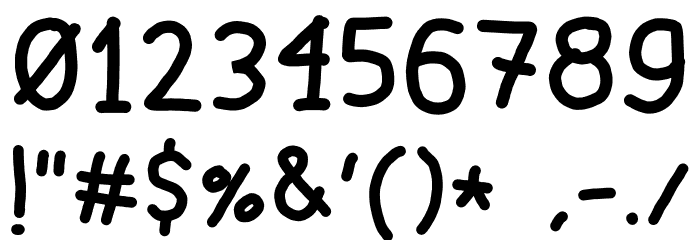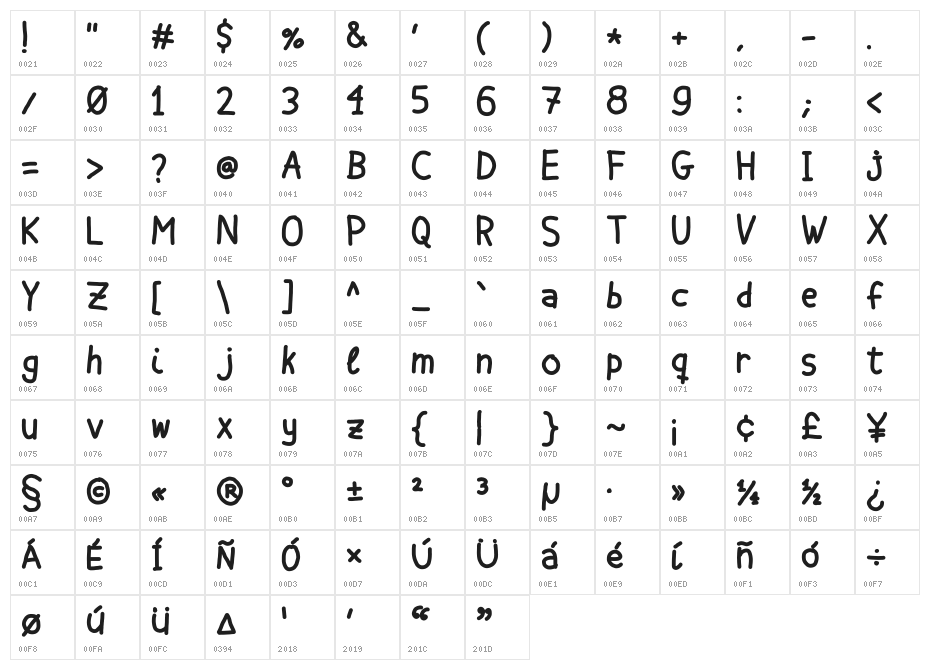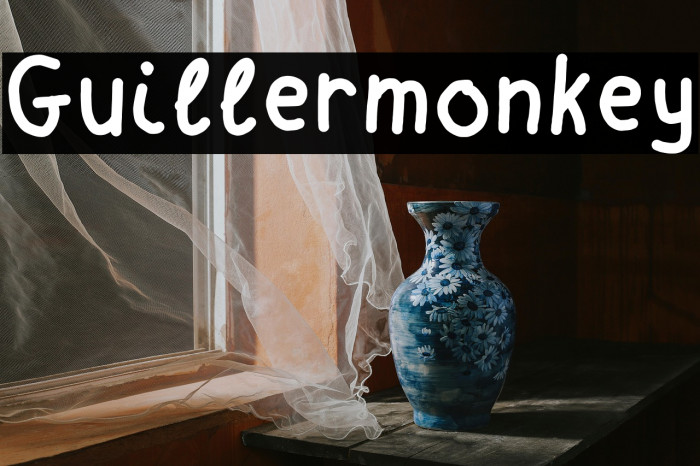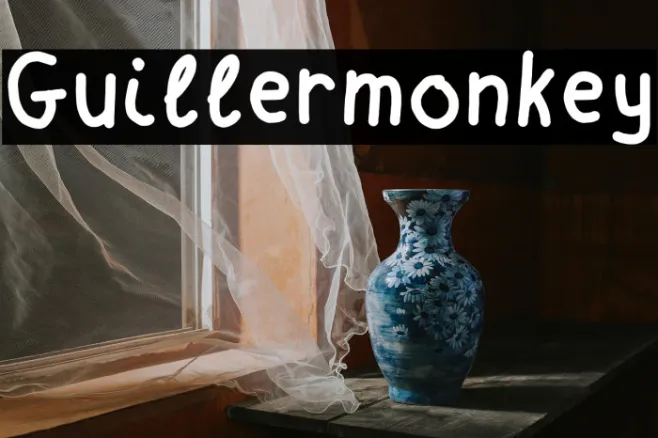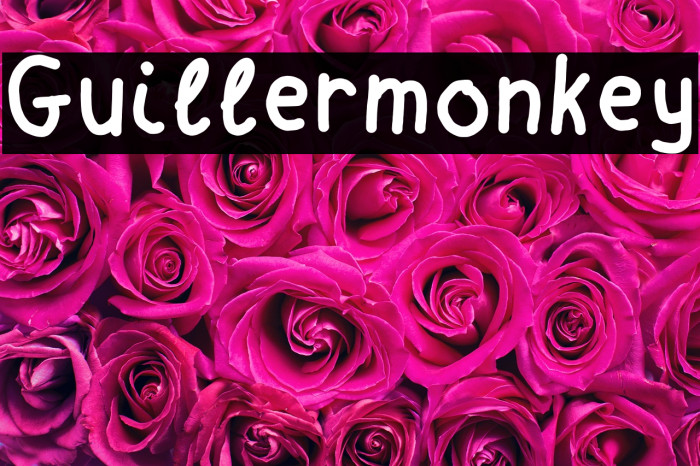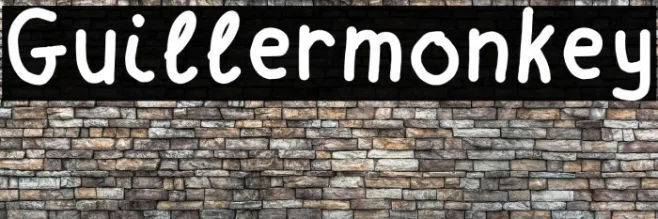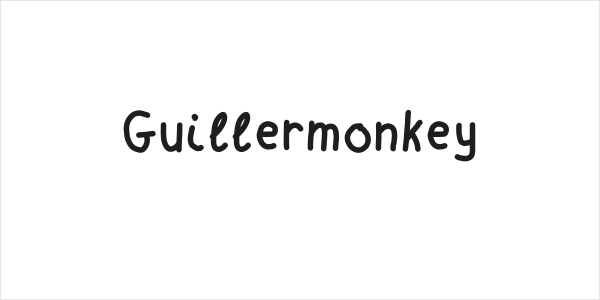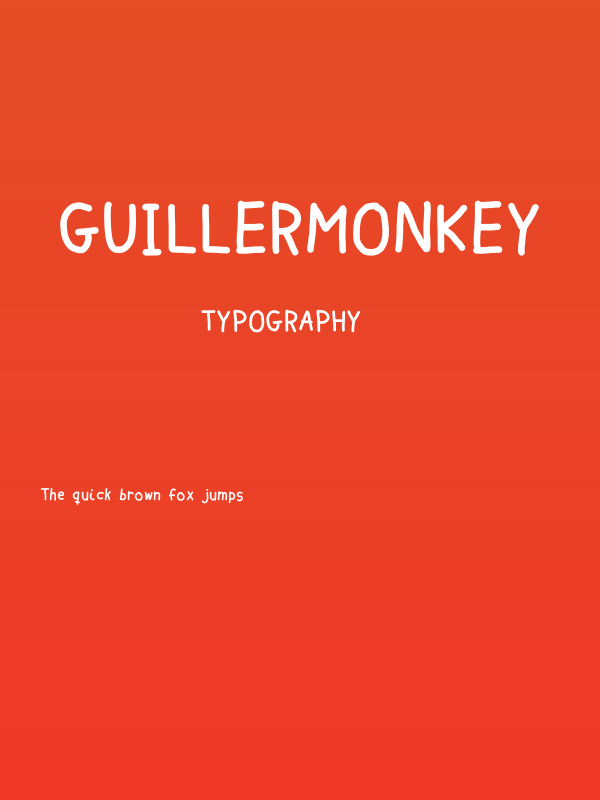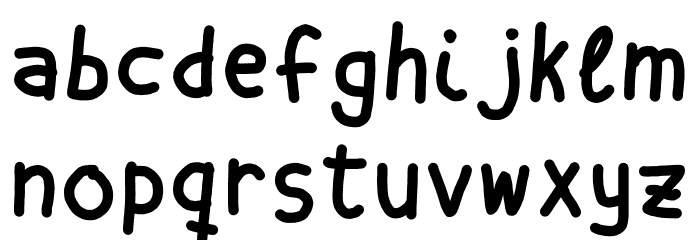
Guillermonkey Font
Guillermonkey Description
This playful and quirky font features a handwritten style with a casual, informal appearance. The letters are slightly irregular, giving it a whimsical and friendly feel. The strokes are consistent in weight, providing a uniform look across all characters. The font includes both uppercase and lowercase letters, numerals, and a variety of special characters. Its rounded edges and smooth curves contribute to its approachable and fun personality, making it suitable for creative and lighthearted projects.
| Proposed Projects | Ideal for children's books, greeting cards, playful branding, and casual invitations. |